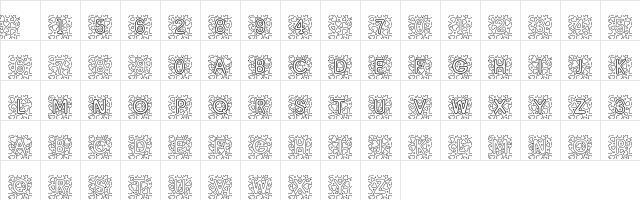
Complete PatternLove Regular glyph index. Displaying only characters natively supported by PatternLove Regular font.
PatternLove is a composed and adaptable typeface that performs quietly and consistently across a wide range of design contexts.